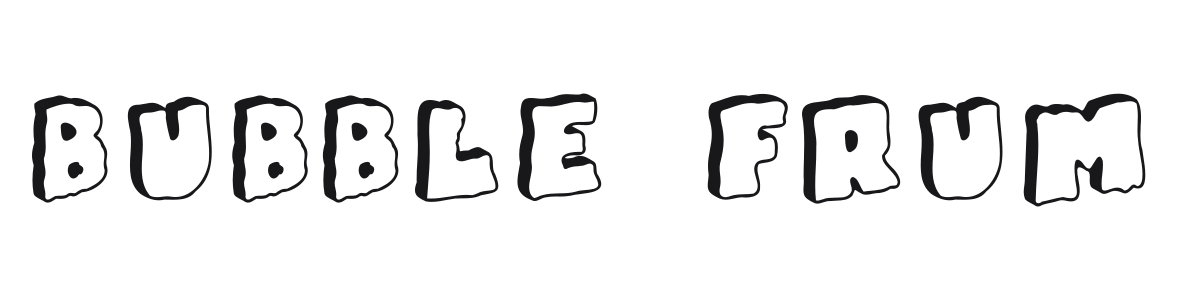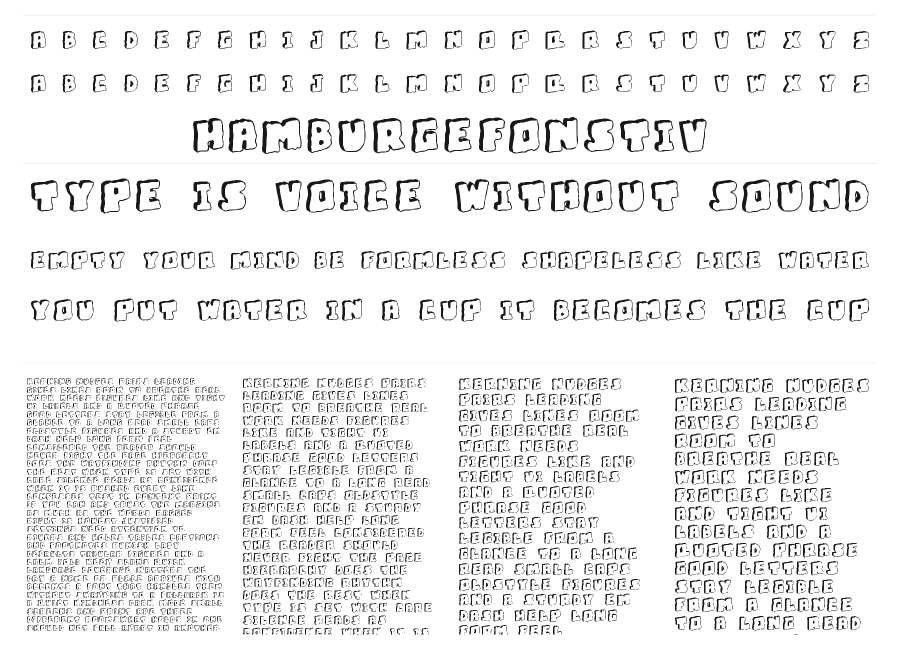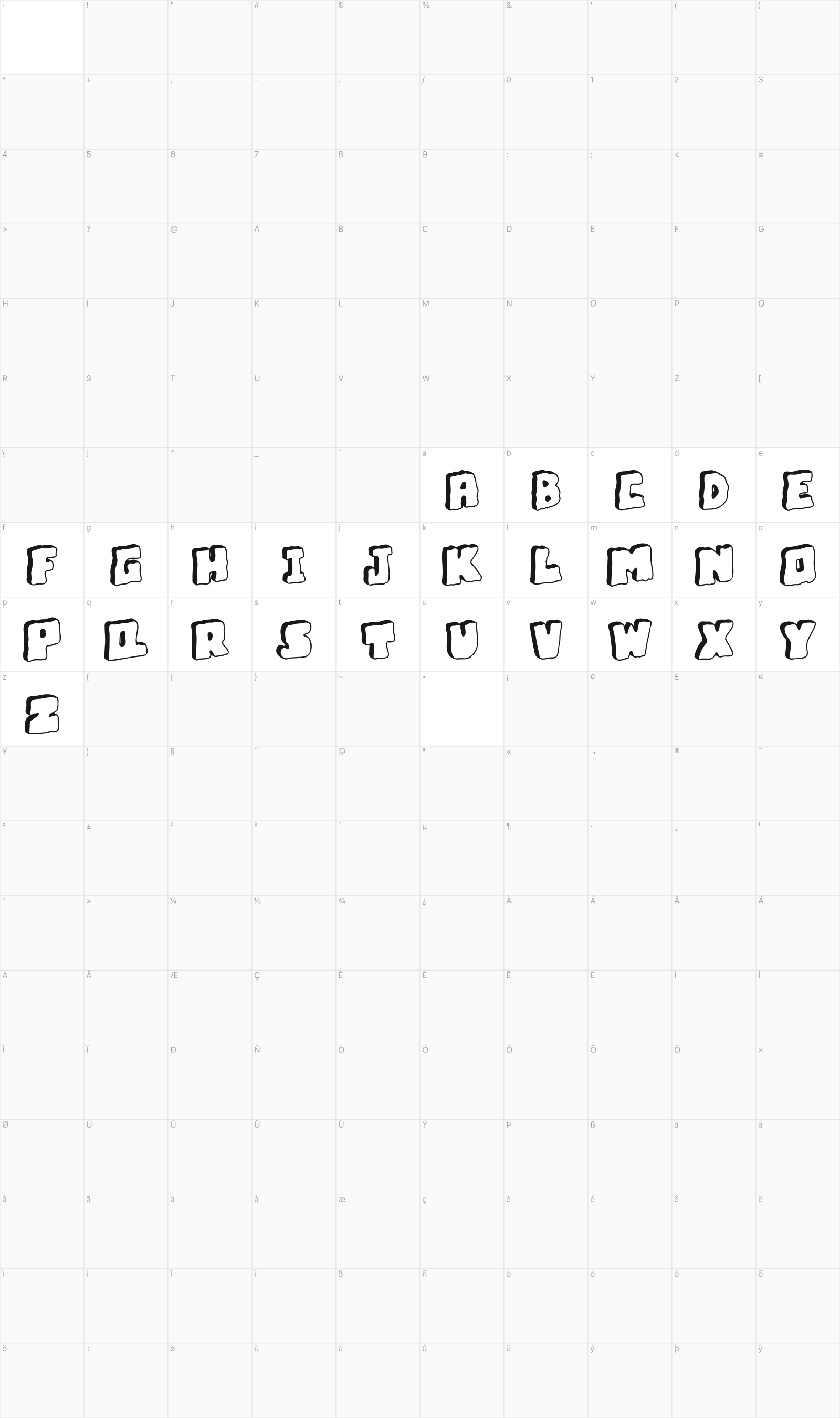
Bubble Frum
Bubble Frum is a hand-drawn bubble letter display font with thick, inflated characters outlined in a classic comic-book style. Each letter has rough, organic edges that preserve the energy of the original hand-lettering. It leans hard into playful boldness, making it at home on merchandise, posters, game packaging, and anywhere that needs loud, unpretentious fun.